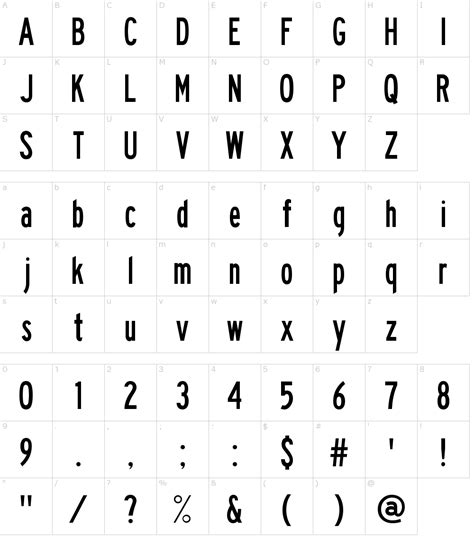
Font Highway Gothic. Department of transportation’s fhwa series of standard alphabets, also. The design of overpass is an interpretation of the well.
The design of overpass is an interpretation of the well. Department of transportation’s fhwa series of standard alphabets, also. Web overpass is a free, open source typeface designed by delve fonts.
The design of overpass is an interpretation of the well. Web overpass is a free, open source typeface designed by delve fonts. The design of overpass is an interpretation of the well. Department of transportation’s fhwa series of standard alphabets, also.